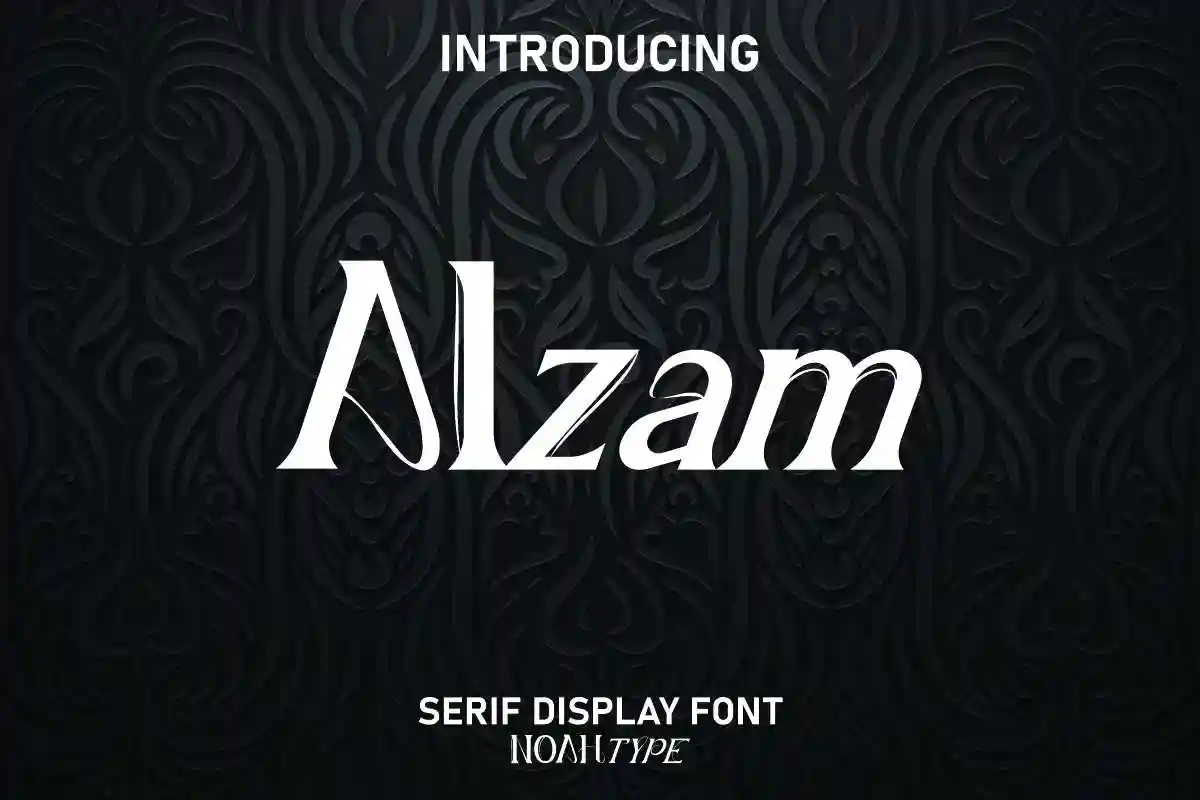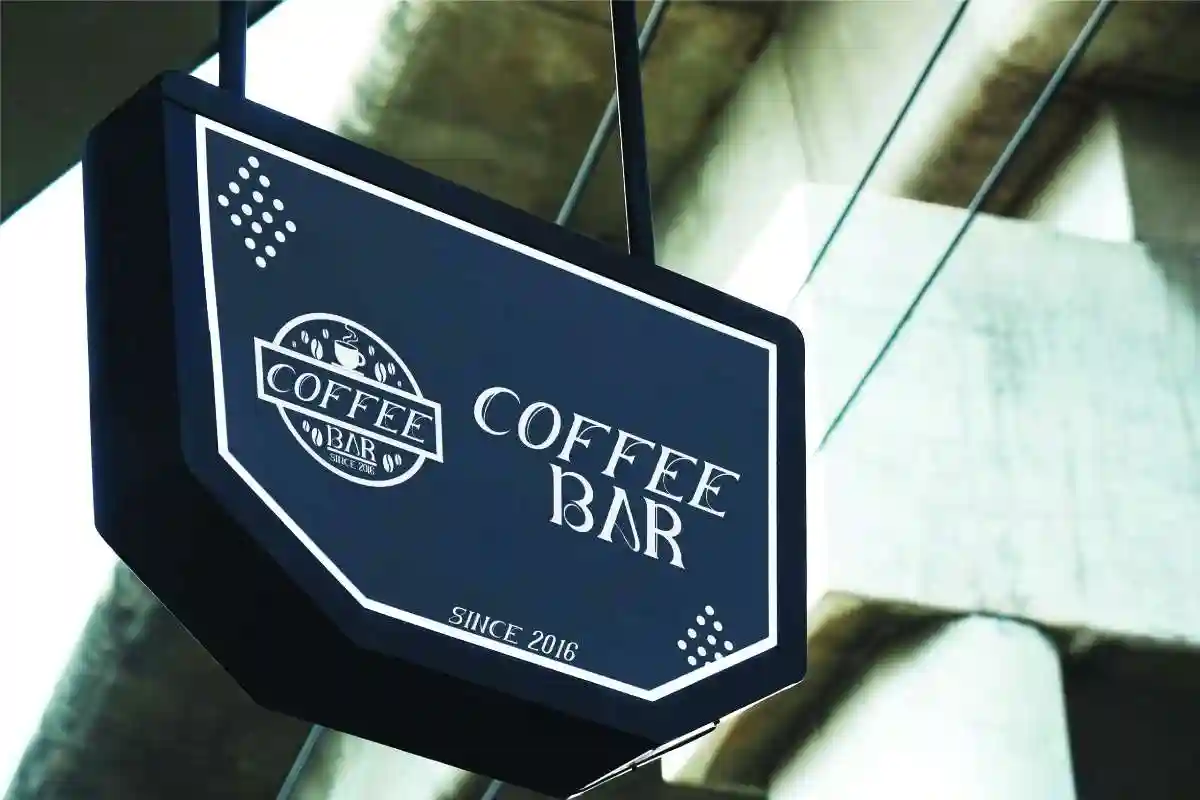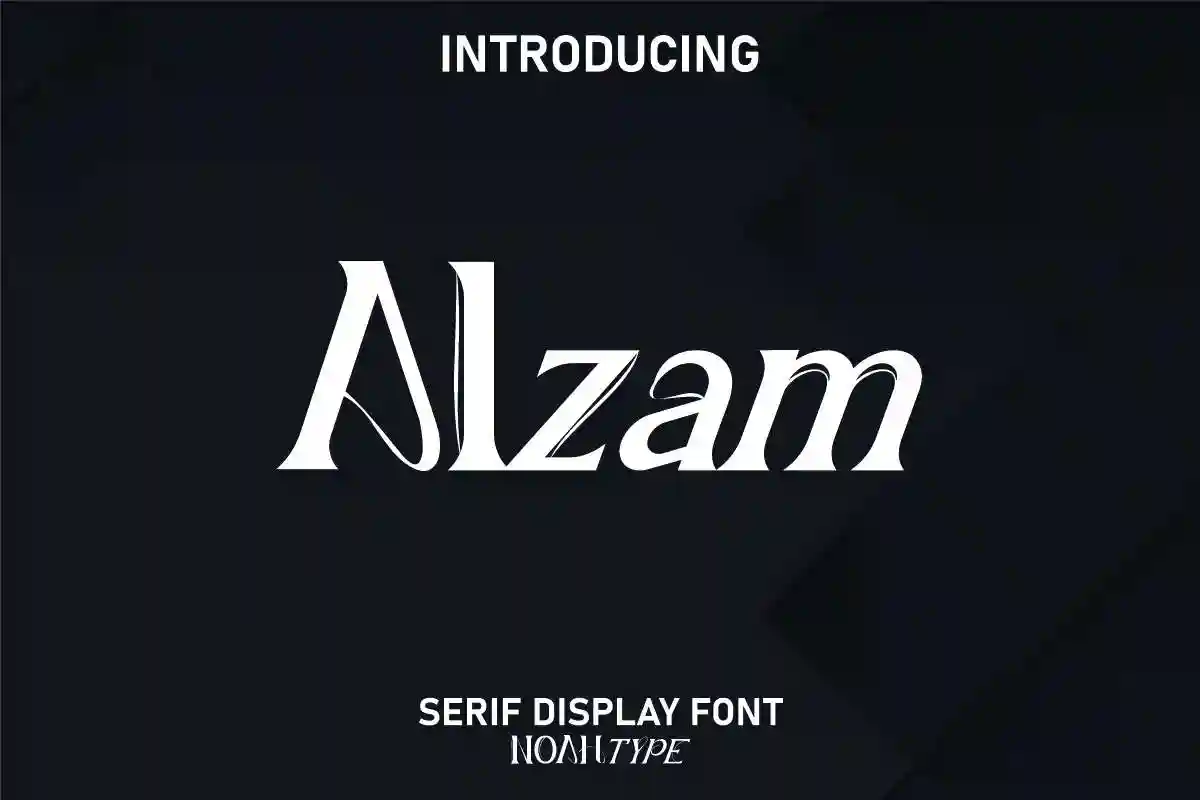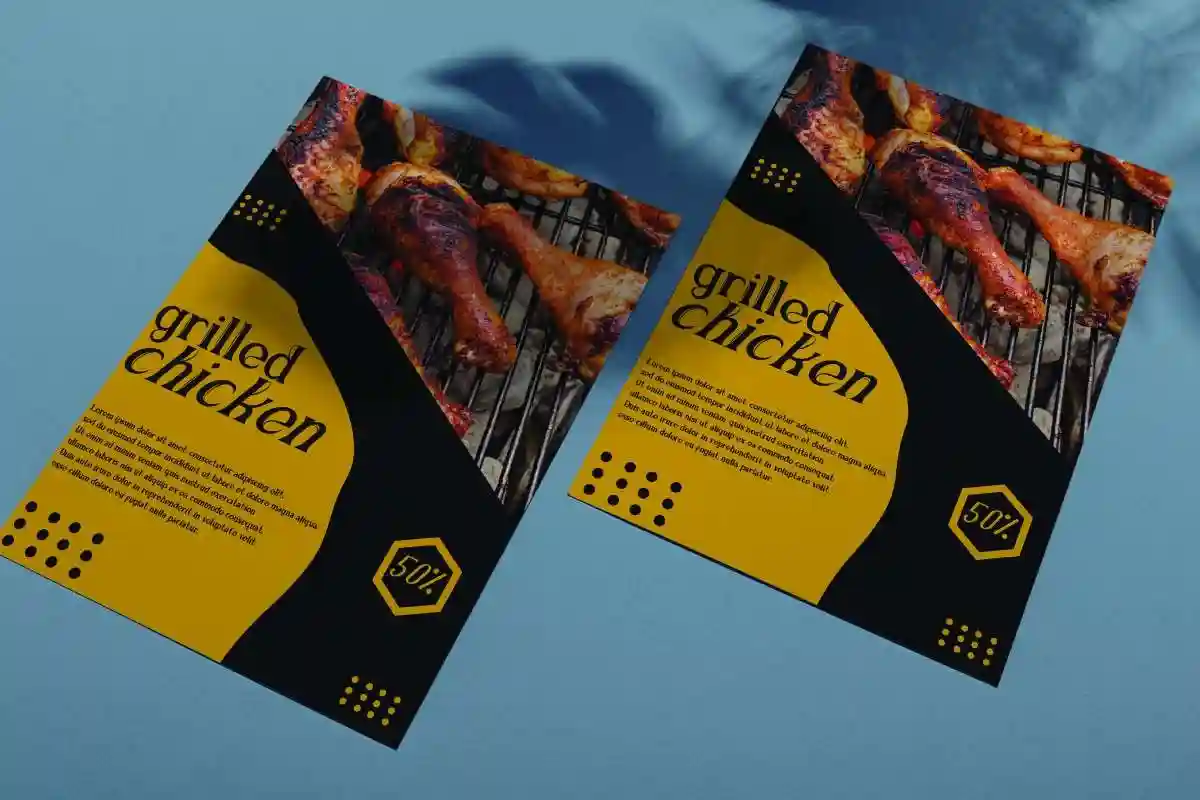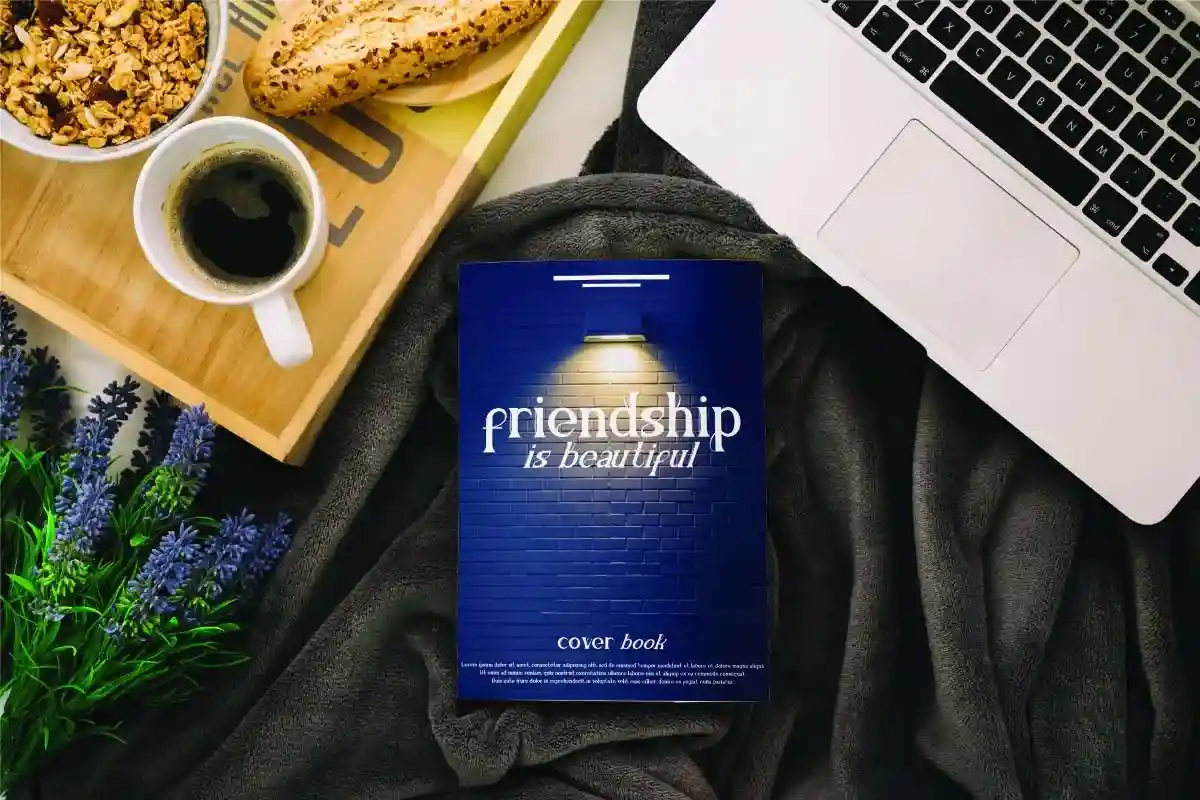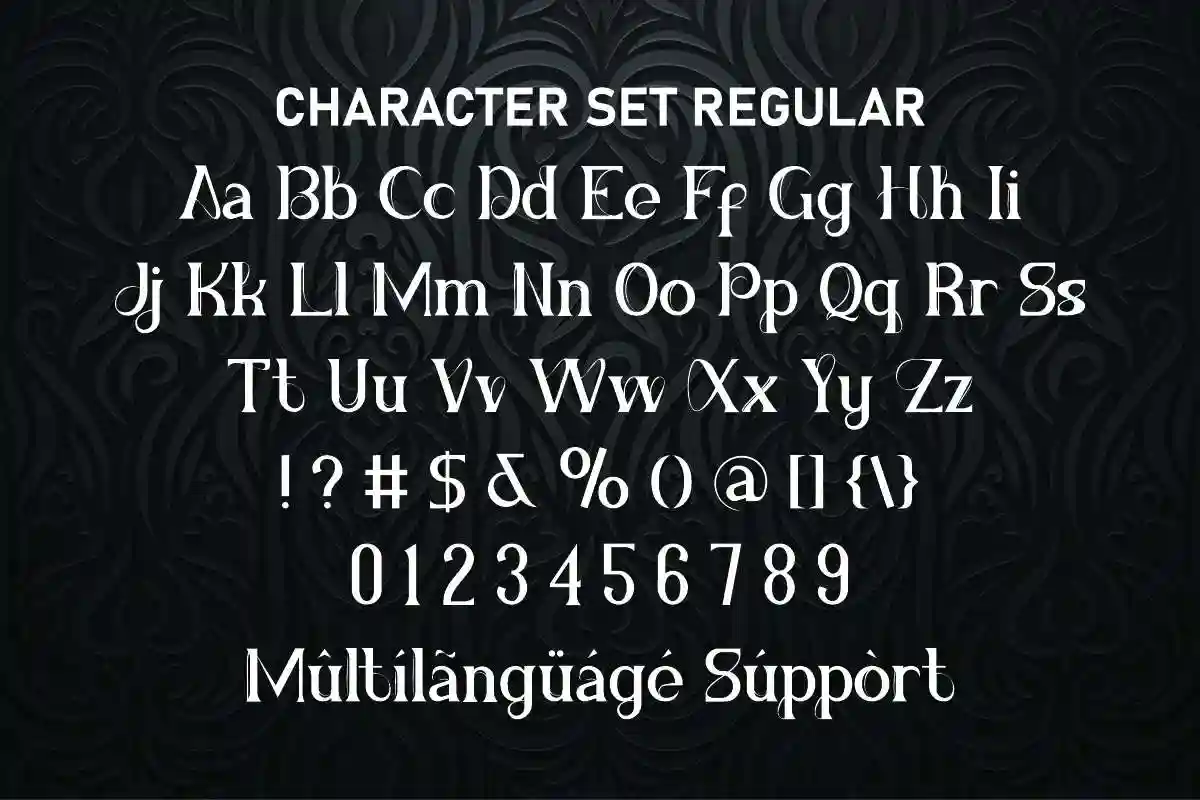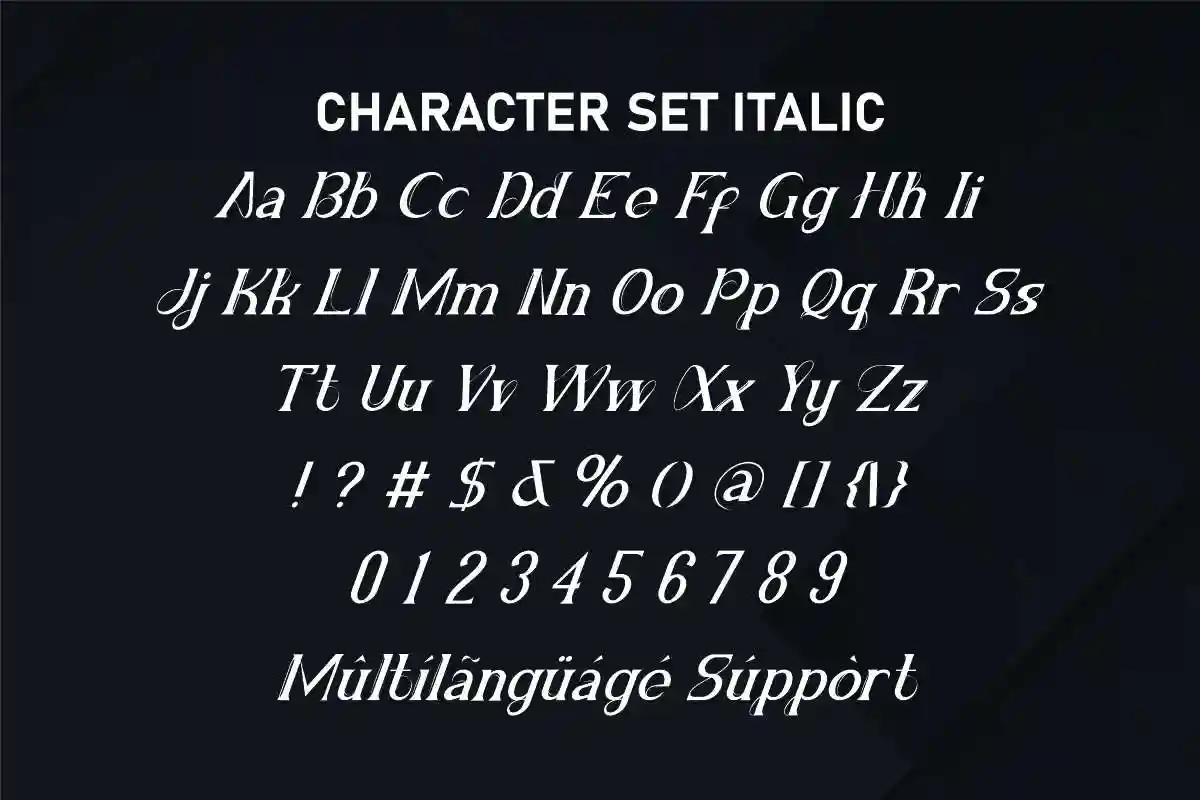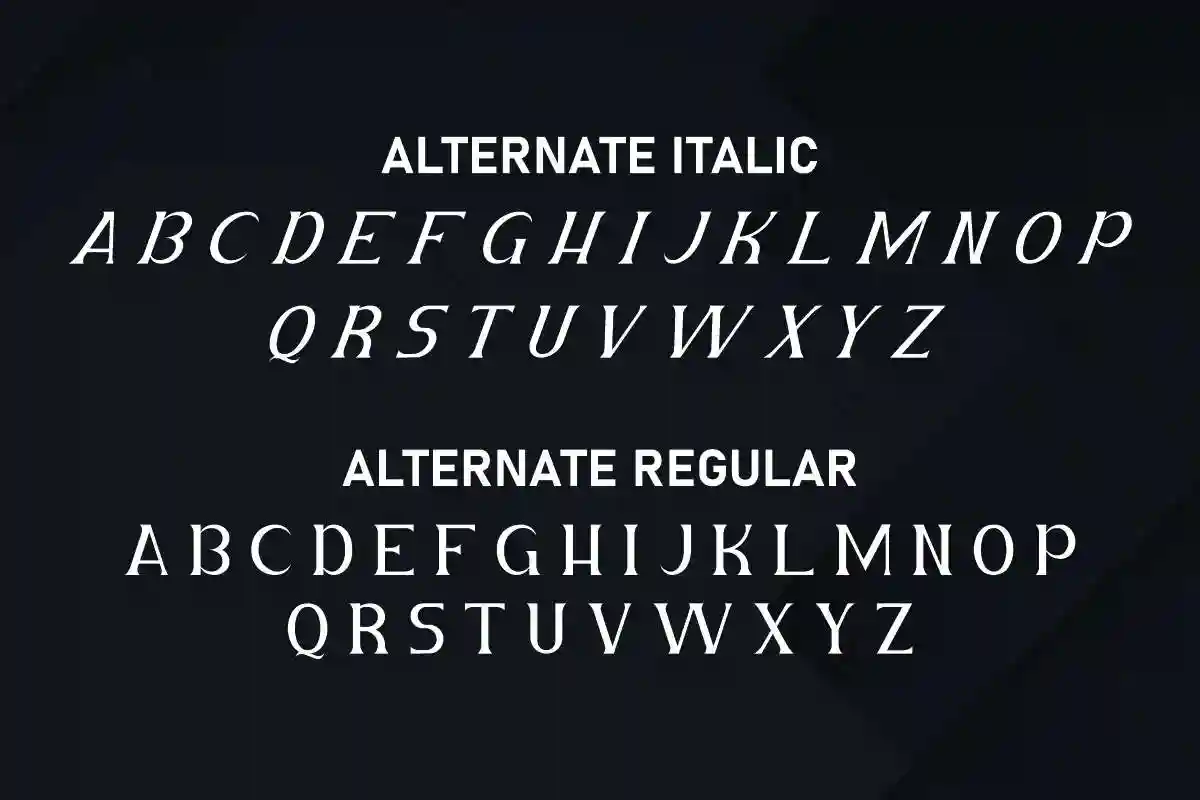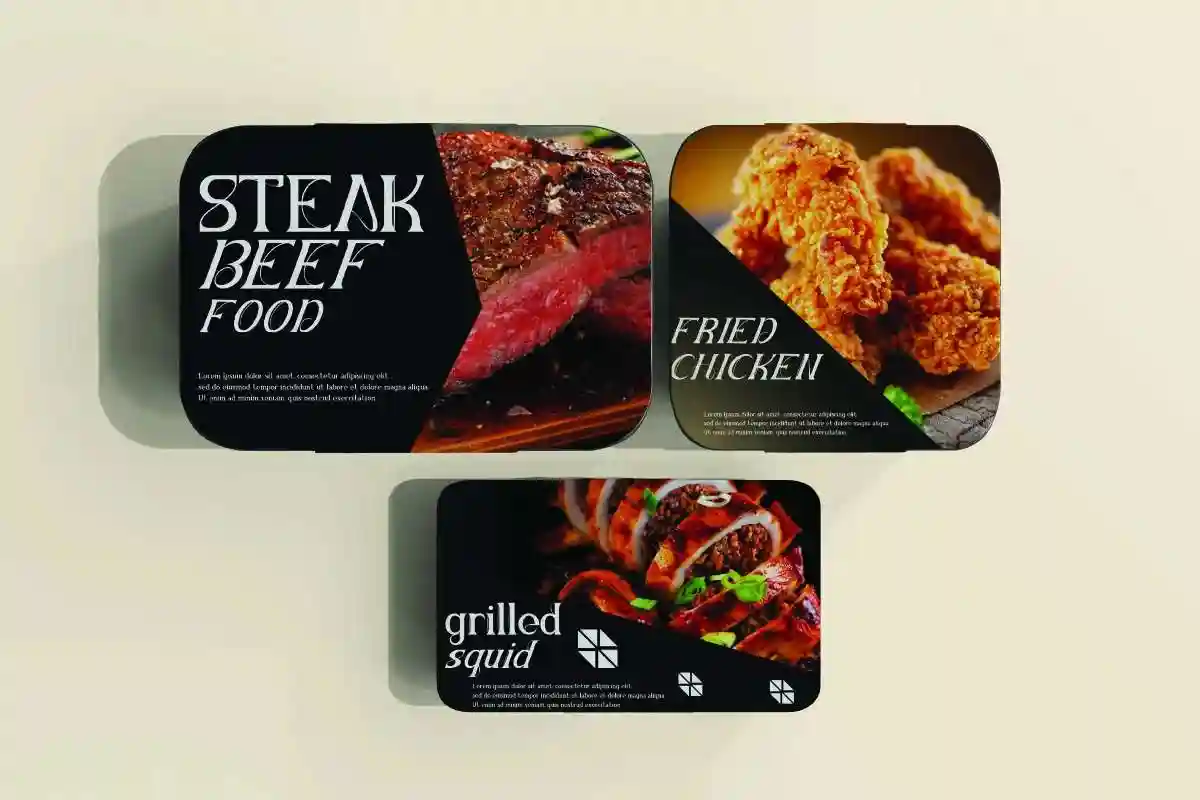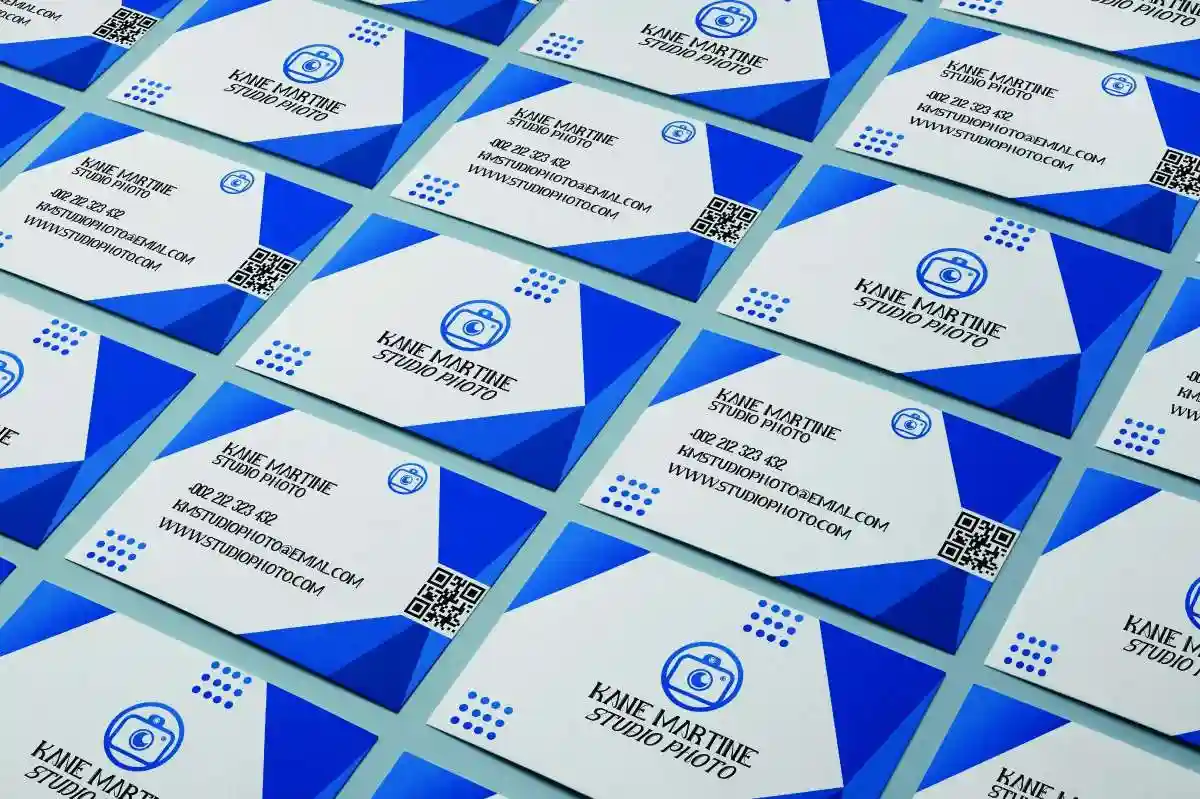
Alzam Font is a unique serif display font with classic style. The font is inspired by the ancient Roman era and still easily to read. It will be amazing for any projects including: book cover, branding logo, brochure, business card, invitation, poster, product packaging design, signage and more.
Alzam Font includes full set of Uppercase and Lowercase Basic Characters, Numerals and Punctuation to make it authentic and flawless characters to make stylish look that add more elegant fonts to perfect your extraordinary project. This font consists of two different types, Regular and Italic. It will be awesome for any industry such as café, craft, culinary, musician, photo studio, restaurant, writers, and more.
The Alzam Serif Display Font features strong letterforms, sharp serifs, and refined curves that draw the eye and command attention. Perfect for designers, marketers, and creatives, it works beautifully for luxury brands, fashion editorials, magazine titles, wedding invitations, packaging designs, and professional presentations. Its versatility allows you to use it in both digital and print projects while maintaining exceptional clarity and style.
Alzam Font supports multilingual languages (including multiple currency symbols). With a simple installation, it will be ready to use both on Windows machine or Mac. In order to use alternative characters, usually we just need to block the end letters and select alternative letters on glyphs option. It really common in almost any software (Character Map for Windows and Font Book for Mac). It work well on Adobe software such as Illustrator, Photoshop and several other software.